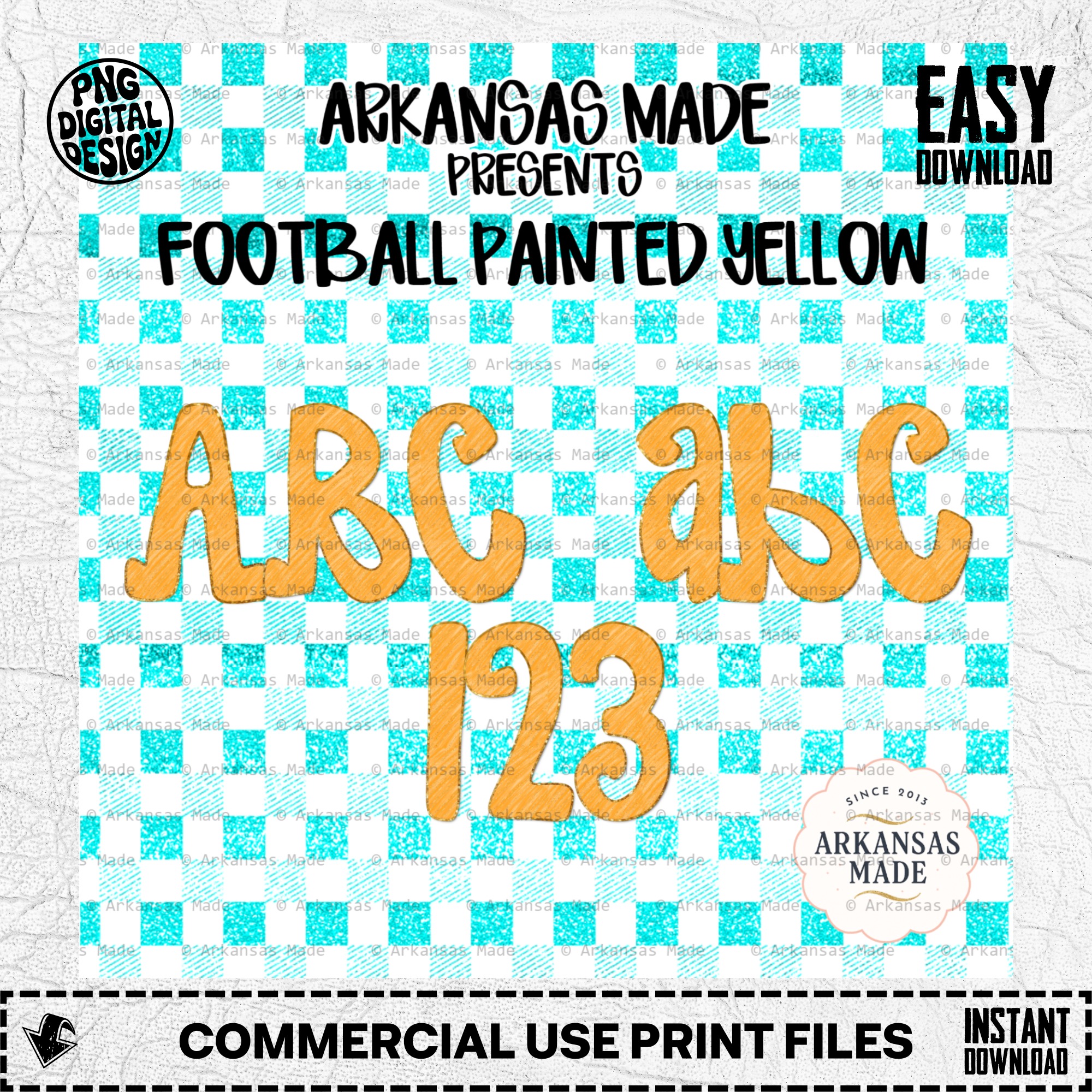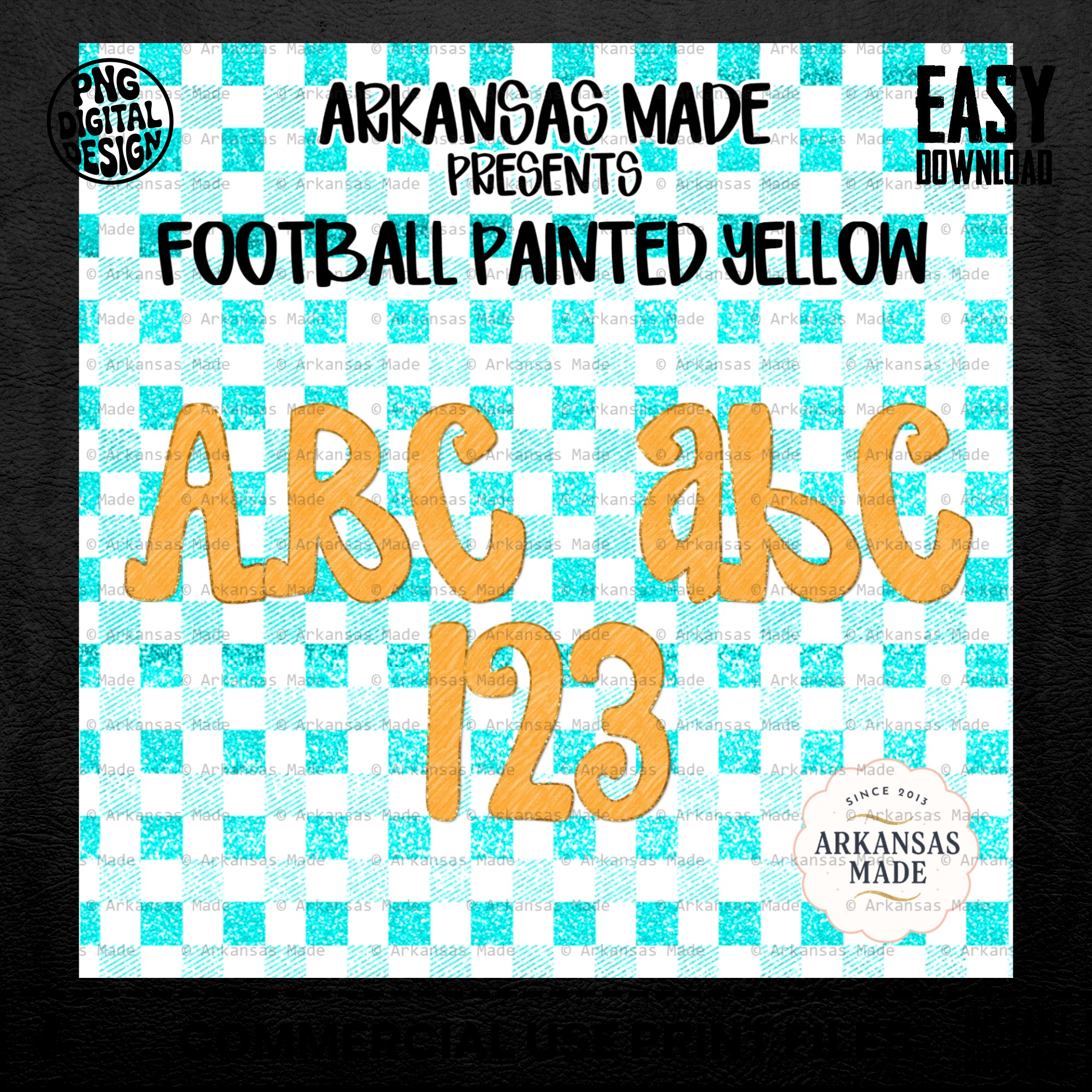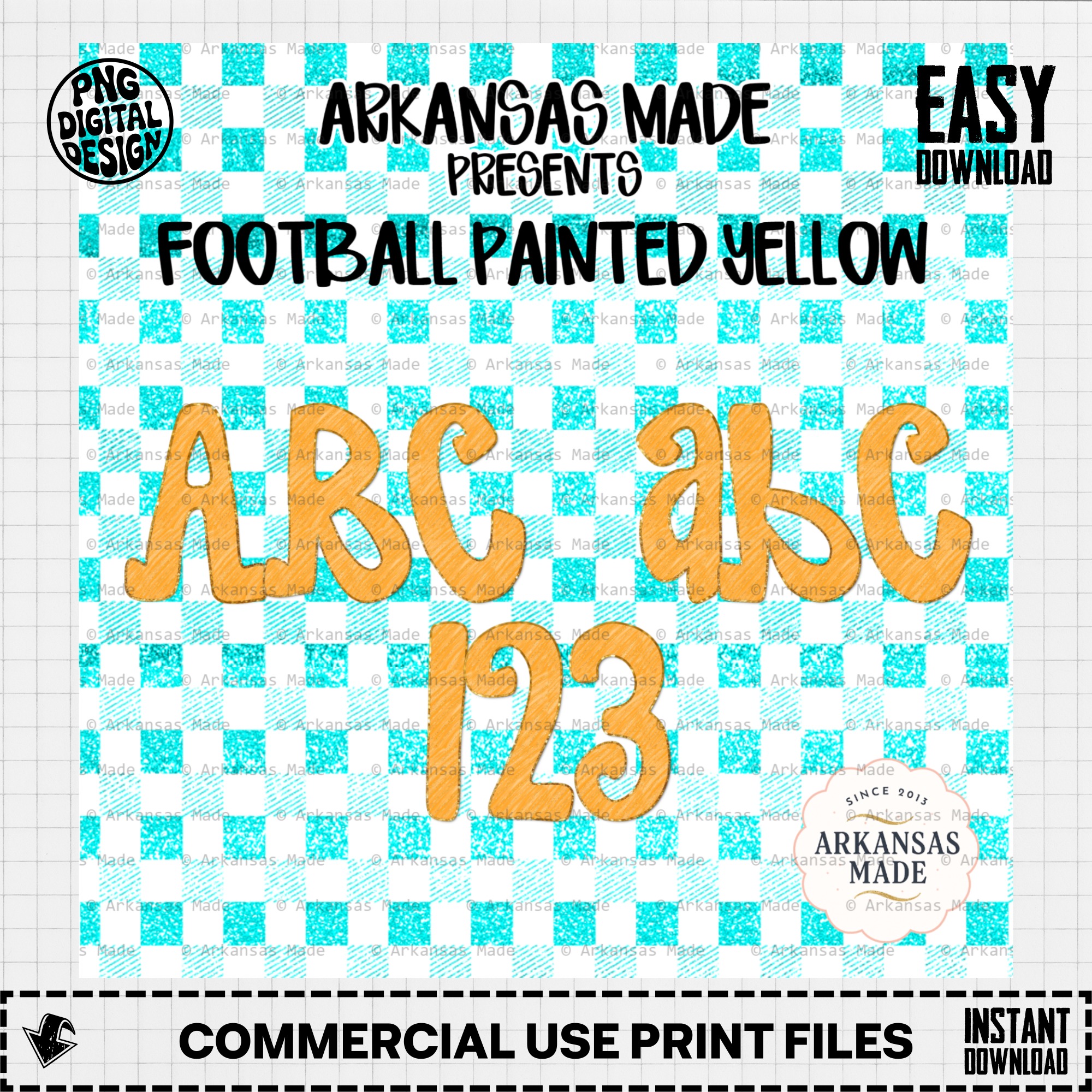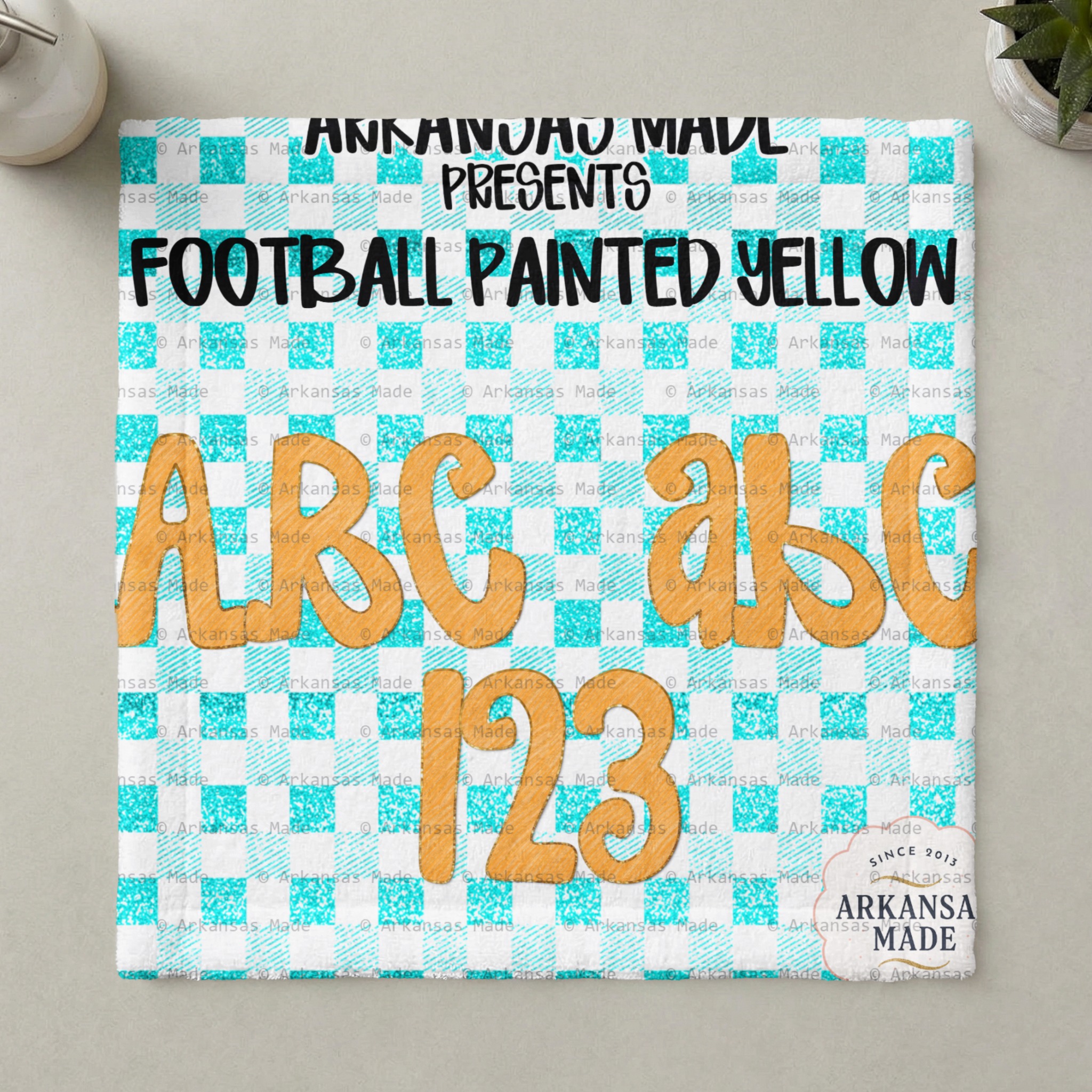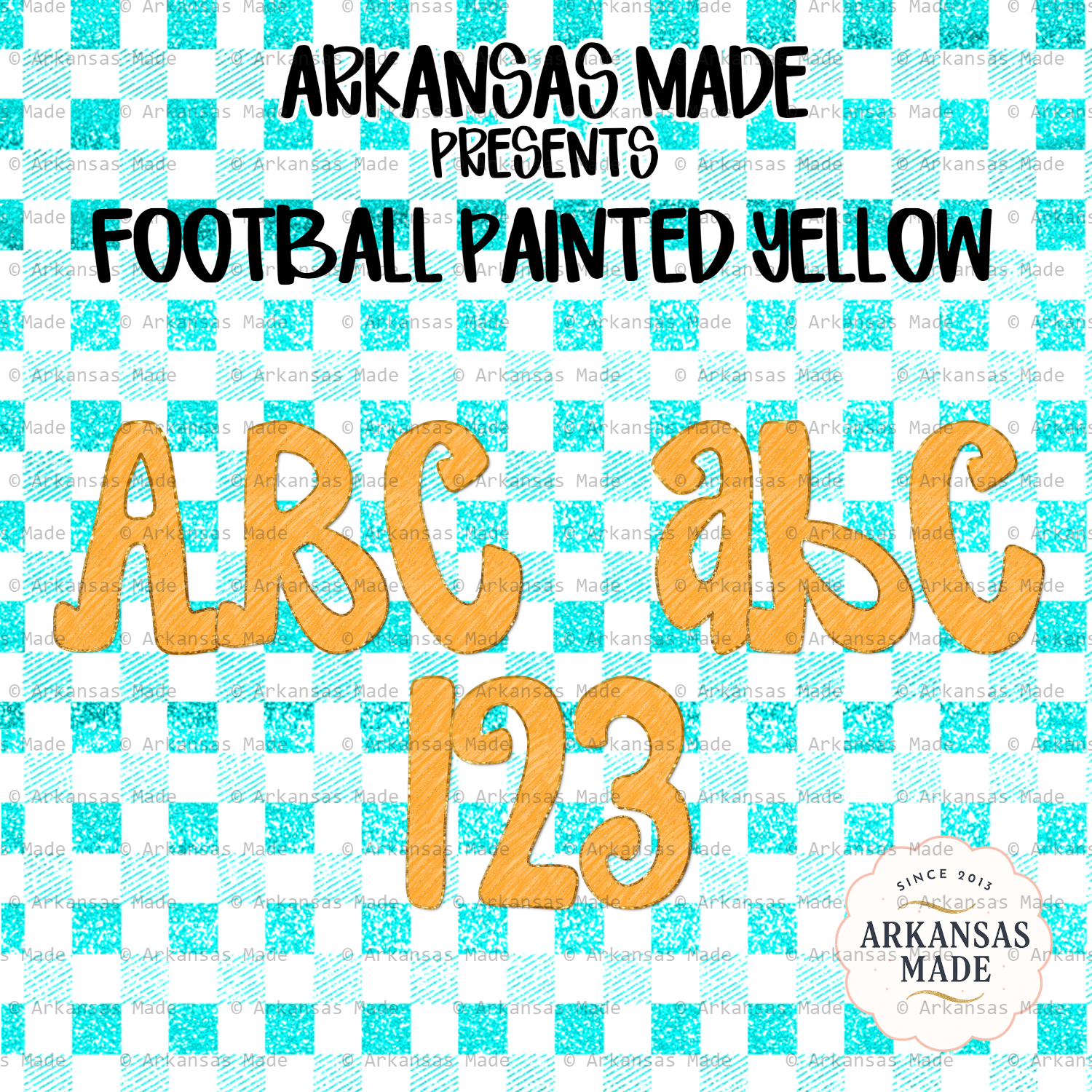
Football Painted Alphabet PNG, Distressed Orange Yellow Letter Numbers Font, Digital Alpha PNGs, Sports Game Day Sublimation, Custom Tee
Elevate your designs with our Football Painted Alphabet PNG, featuring distressed orange yellow letters and numbers. Perfect for game day, sports teams, and custom projects. This digital alpha PNG set captures a playful, faux hand-painted aesthetic, ideal for crafting unique apparel, decor, or personalized gifts. Unleash your creativity for sports moms, teachers, coaches, or anyone celebrating school spirit and football season with this versatile graphic resource.